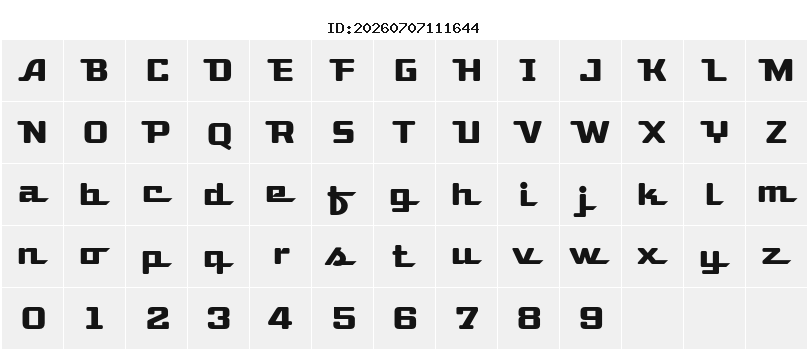
Deli Supreme ITC Std Preview
• Font Name: Deli Supreme ITC Std
• Full Font Name: Deli Supreme ITC Std
• Designer: Jim Spiece
About Deli Supreme ITC Std.otf
Deli Supreme ITC Std.otf is a modern, elegant sans-serif font designed for ultimate readability and visual harmony. Perfect for branding, headlines, web design, and print materials.